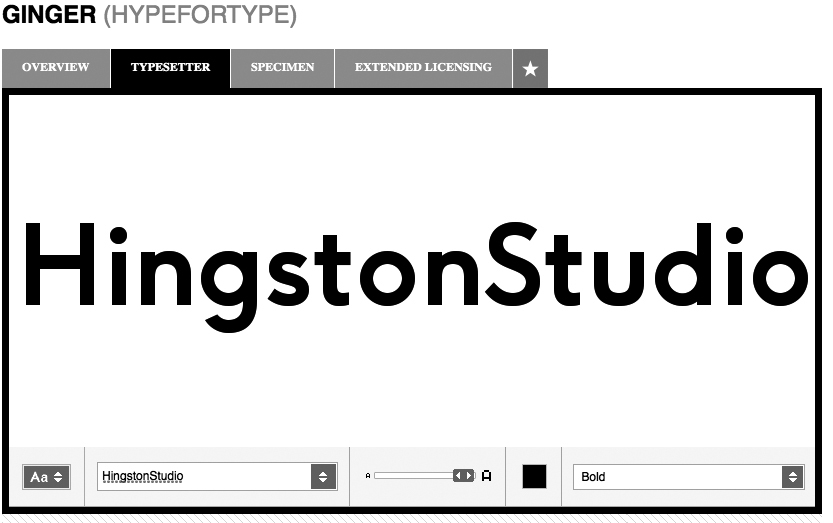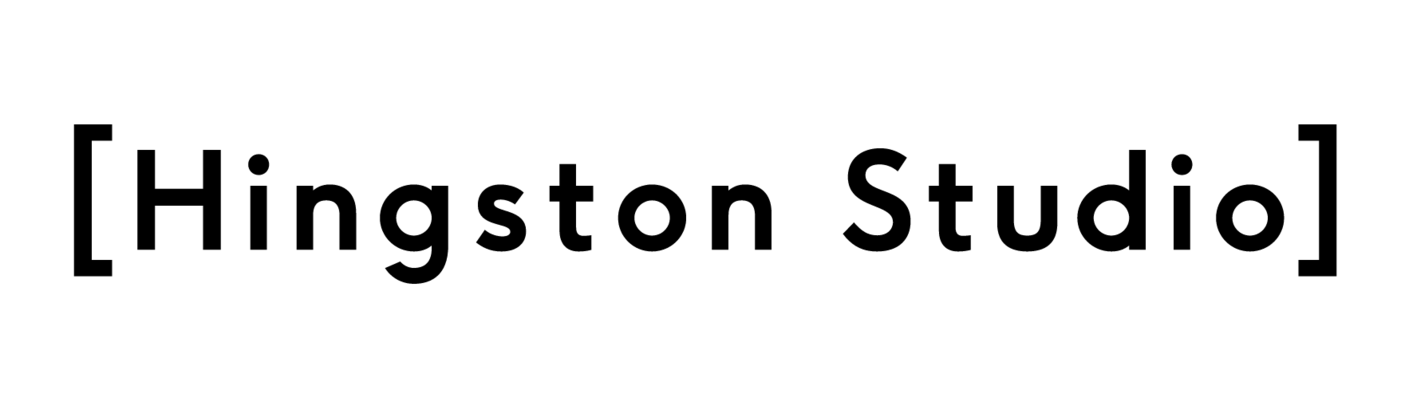
Hinston Studio Identification
I keep on seeing this typeface around, it seems like every design studio is using it these days.
It looks very much like Avenir, but it isn't humanist.
You can also see it on this site – http://hingston.net/